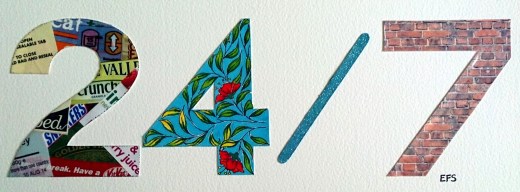
’24/7′ by Eugenie Smit
’24/7′ by Eugenie Smit
“Each letter represents something that is happening 24/7 in London including shopping, the nature to be found in the city’s wide open spaces, the social side of living here and the ongoing construction as the capital expands.”